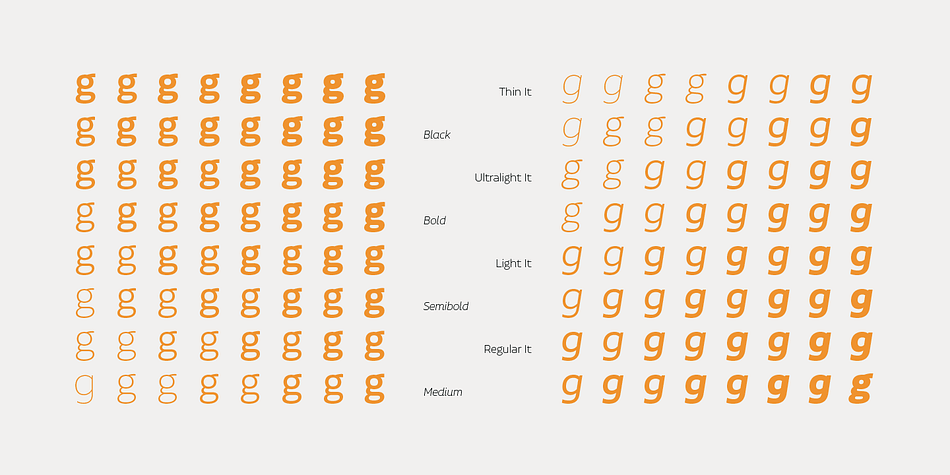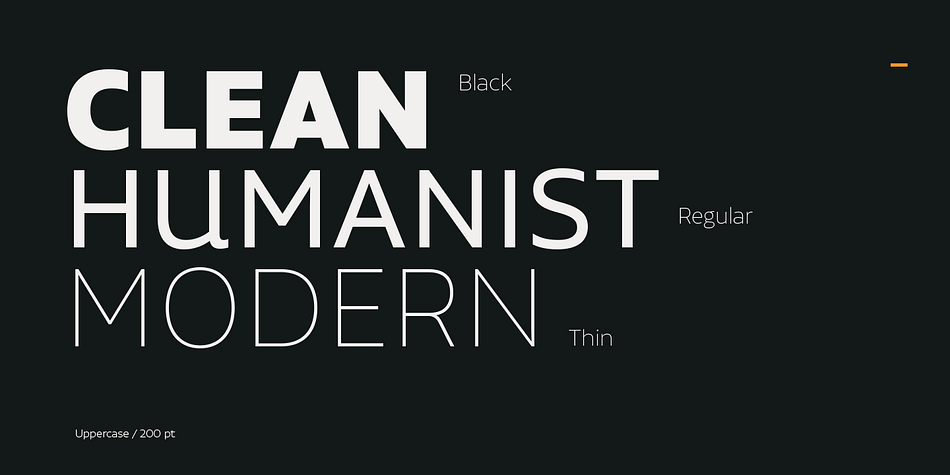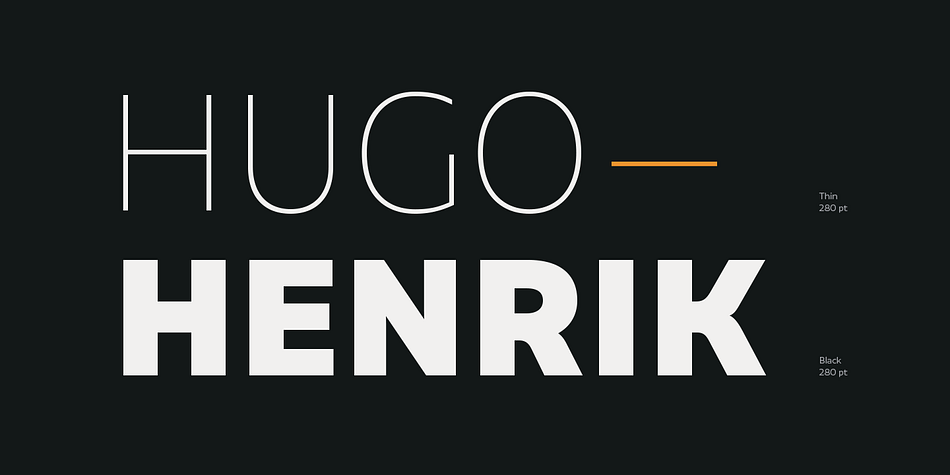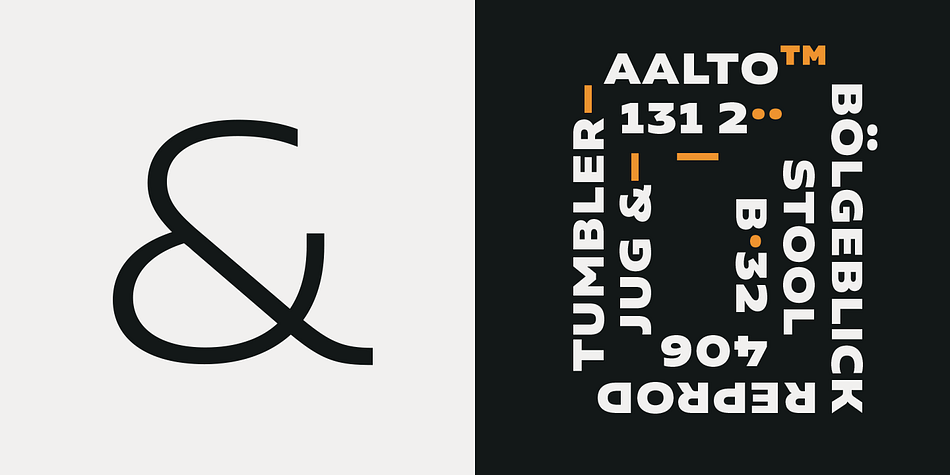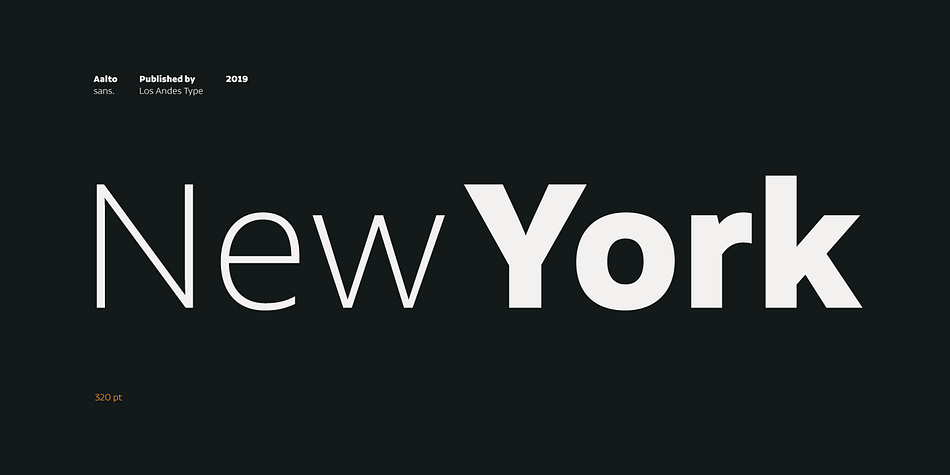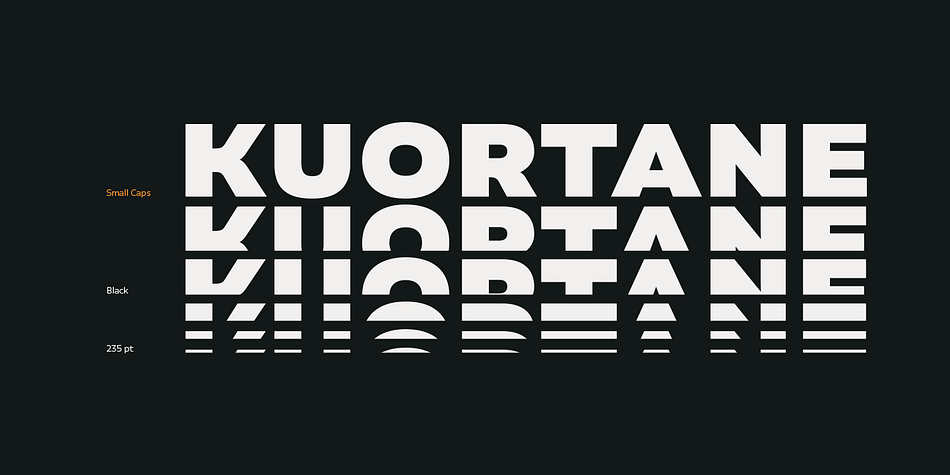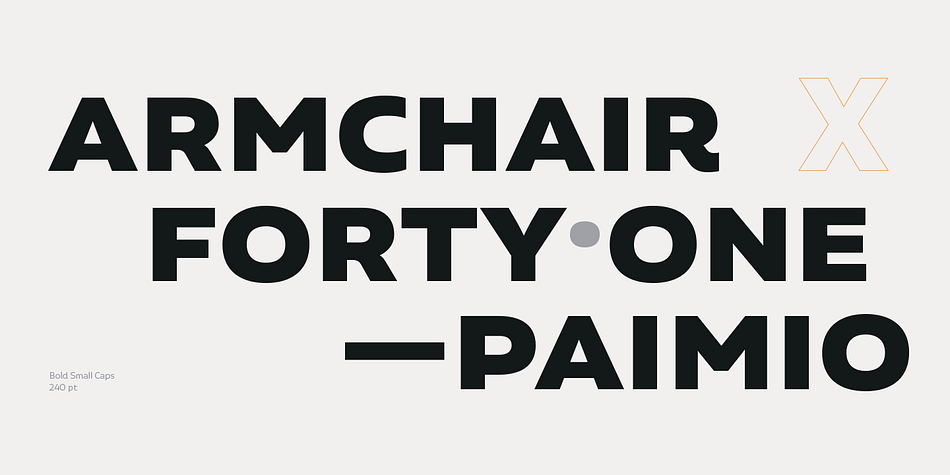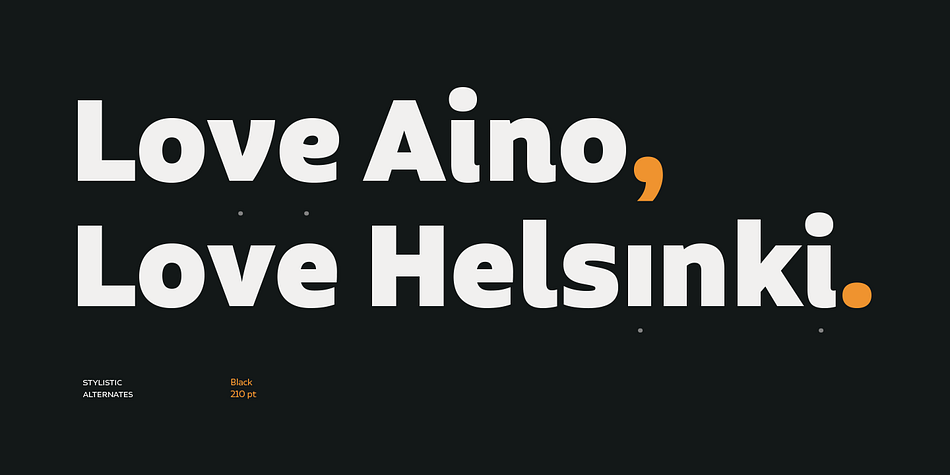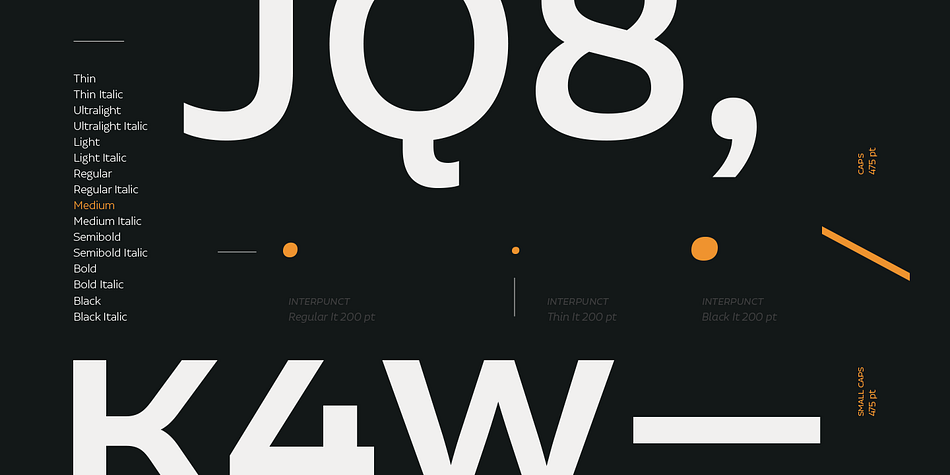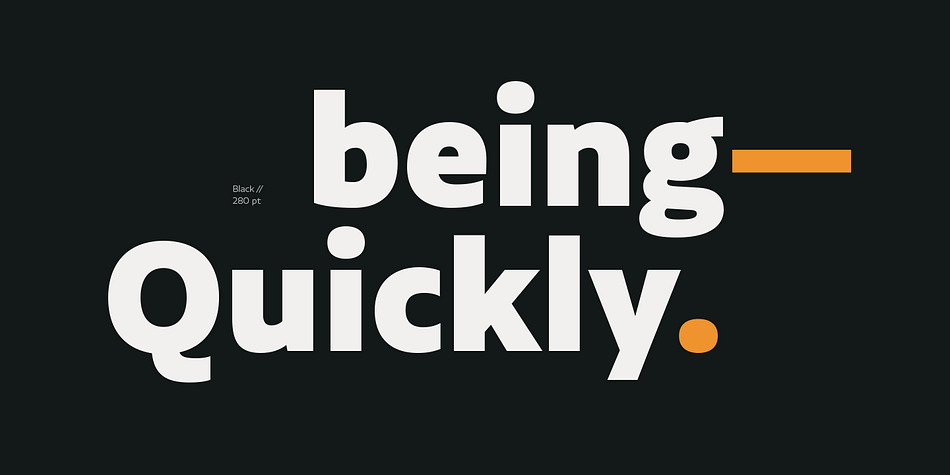
Designed by Luciano Vergara, Aalto Sans is a sans serif font family. This typeface has forty-nine styles and was published by Los Andes Type.
Aalto Sans, a modular Humanist-flavored sans serif typeface, is ideal for corporate use, and brand and corporate identity design. The font performs well for mid-length text. Aalto Sans is a neutral and clean font but it has friendly and modern design characteristics.
Aalto Sans comes in 8 weights with matching italics and the whole family is composed of 3 subfamilies: Pro, Essential and Alt Essential, resulting in a total of 48 different styles. The Pro version includes a Latin Extended character set and OpenType features-stylistic alternates, small caps, case-sensitive forms, proportional and tabular figures, currency symbols, etc. The Essential and Alt Essential versions are well-suited for both web and corporate use.